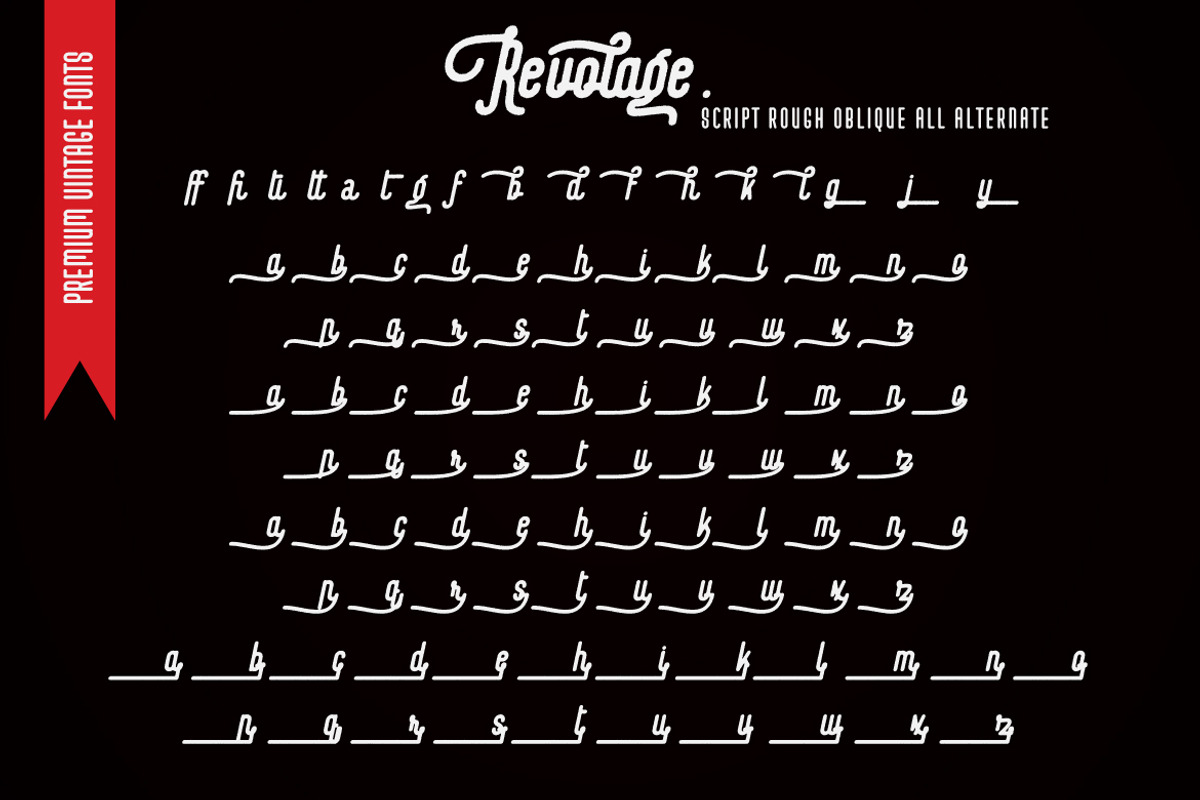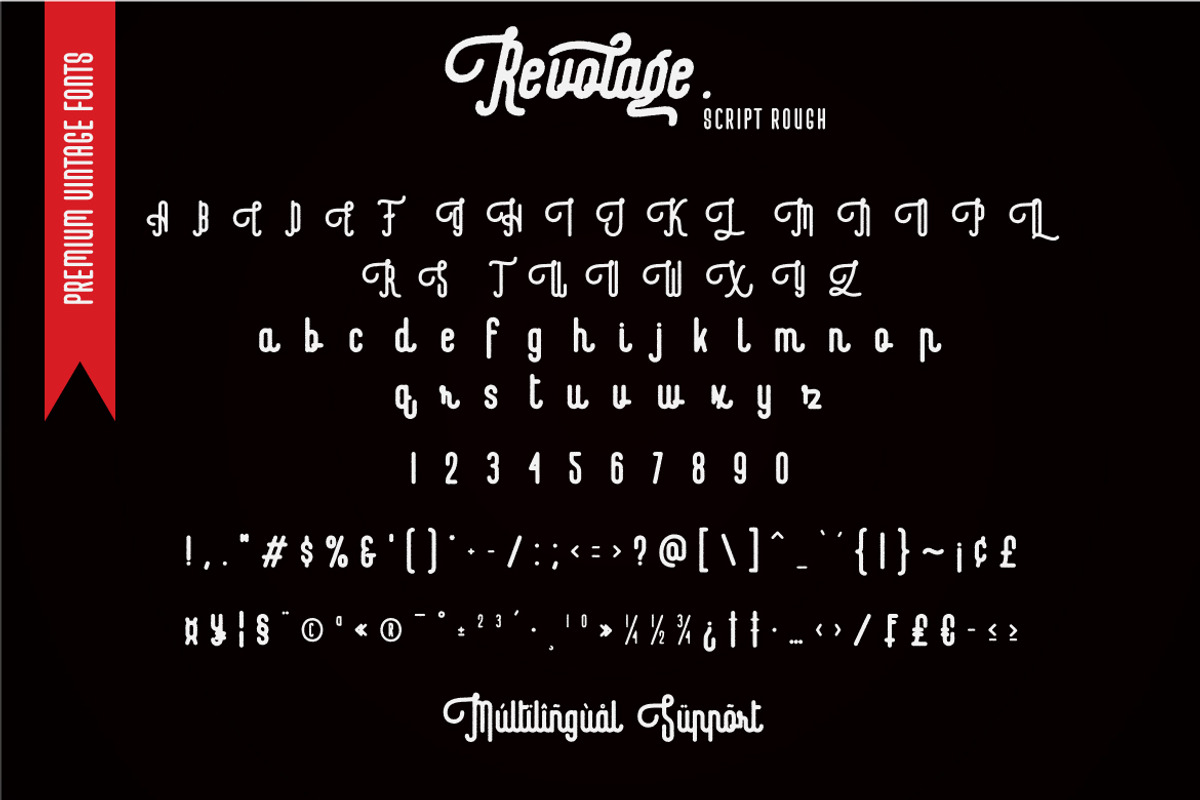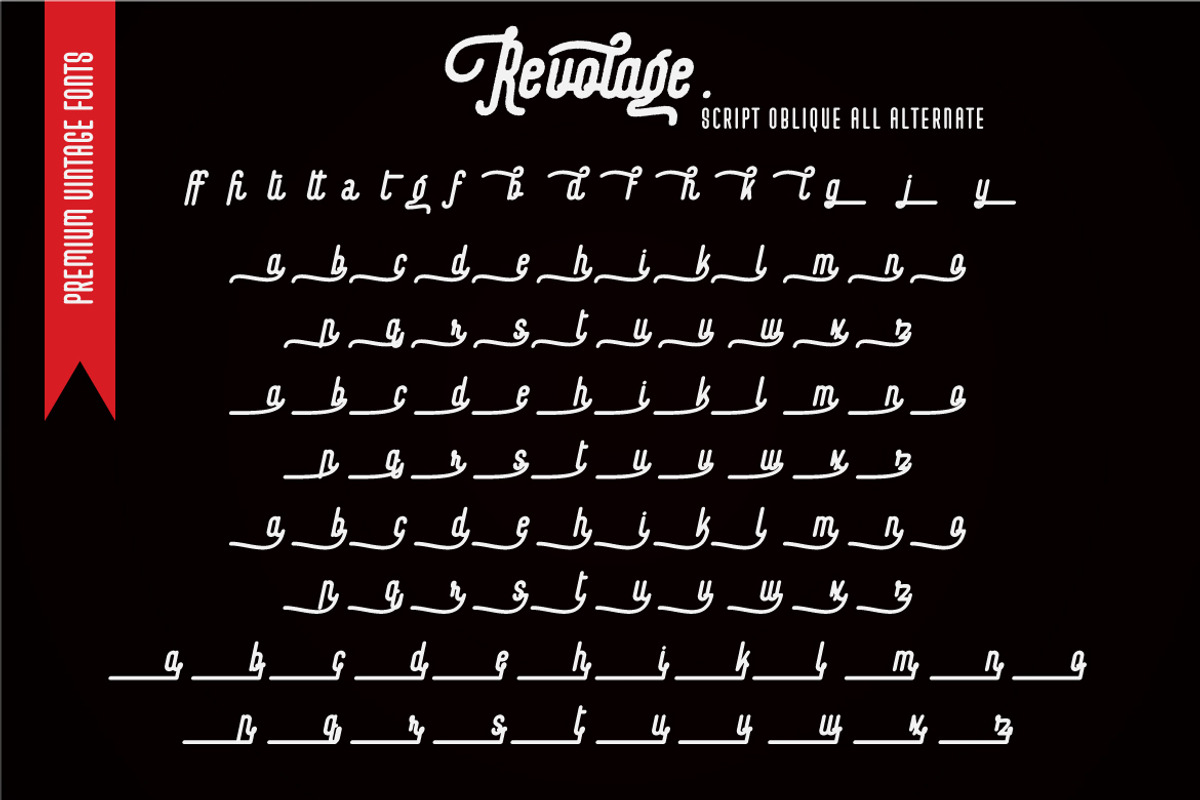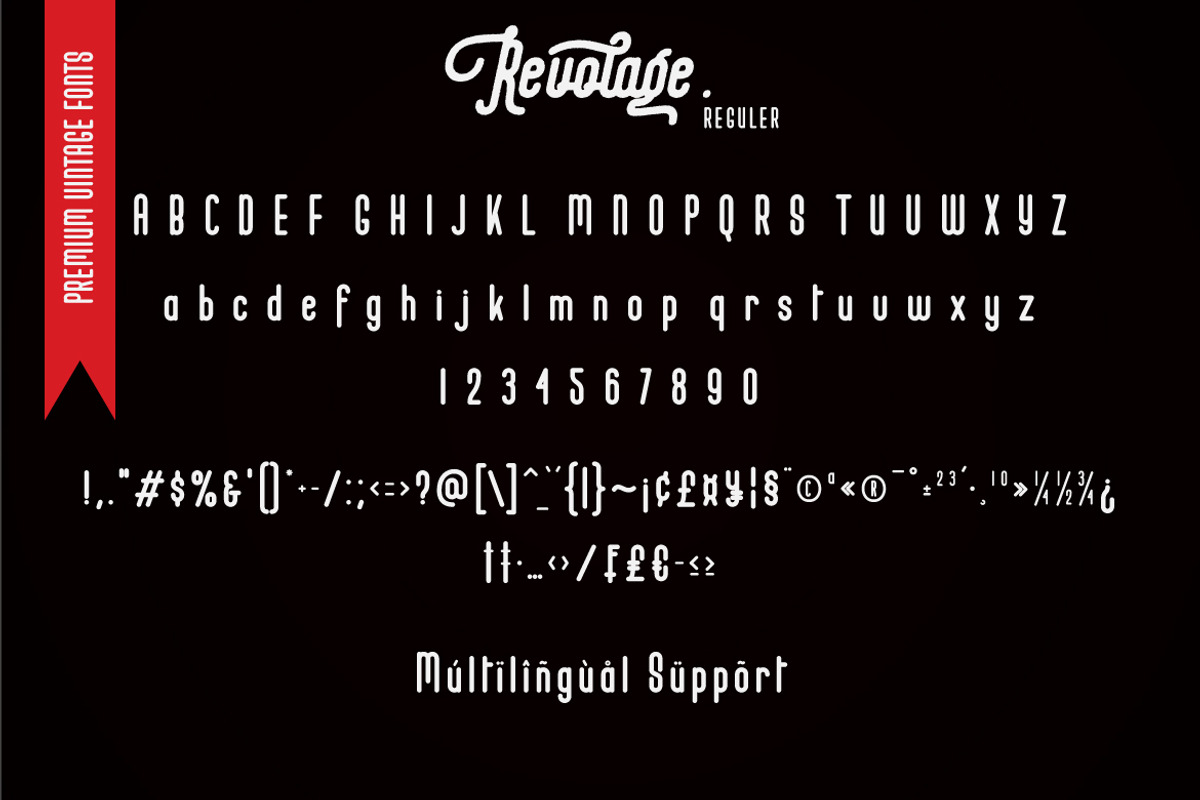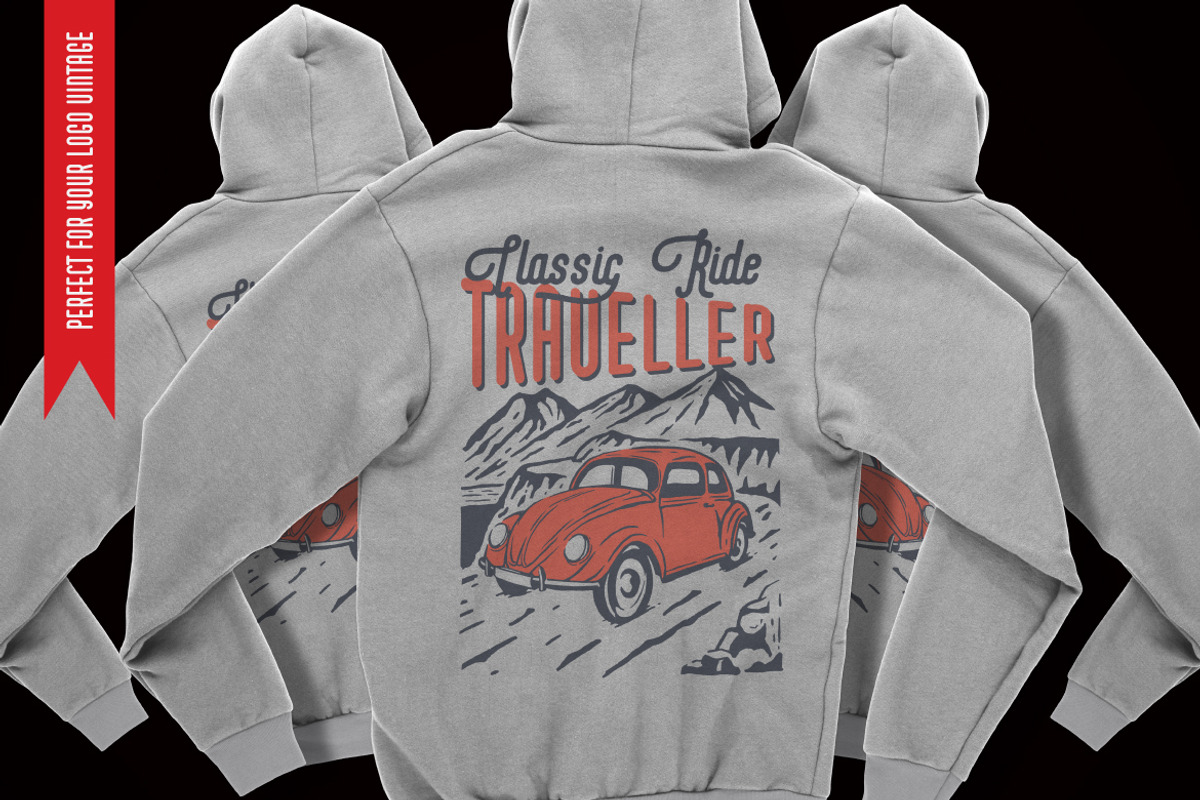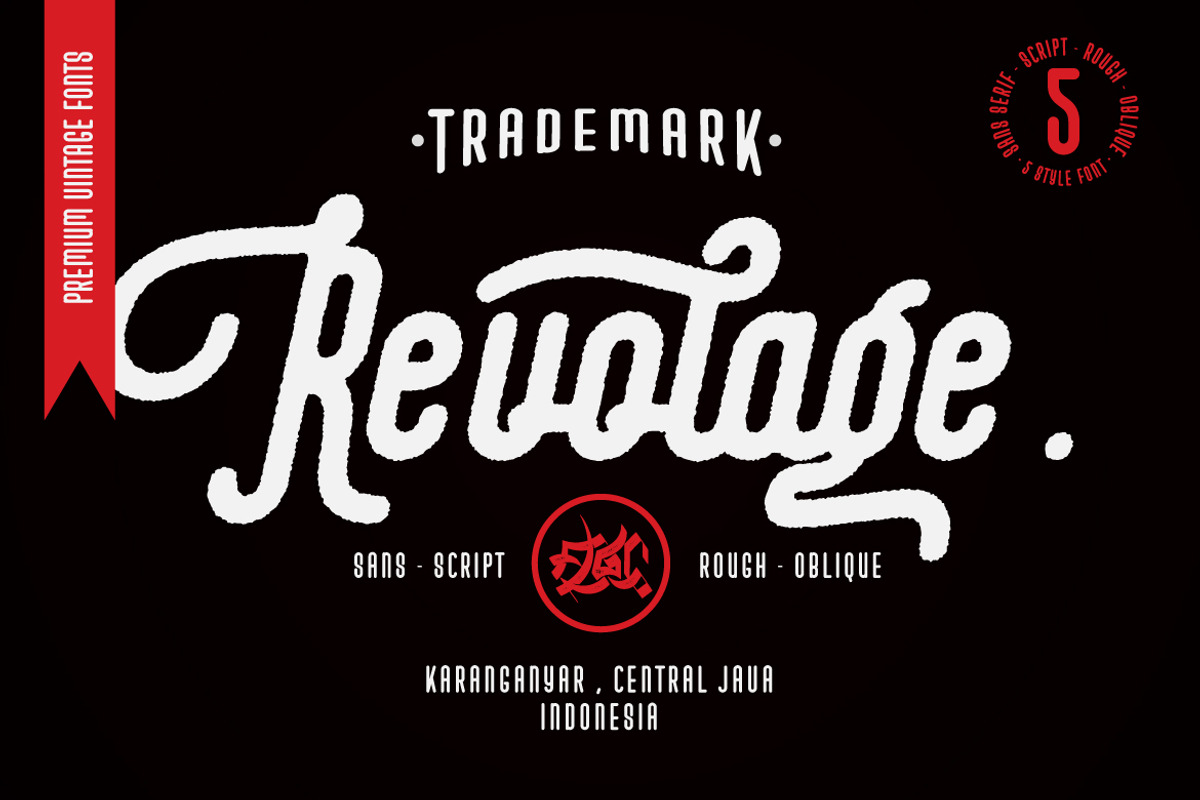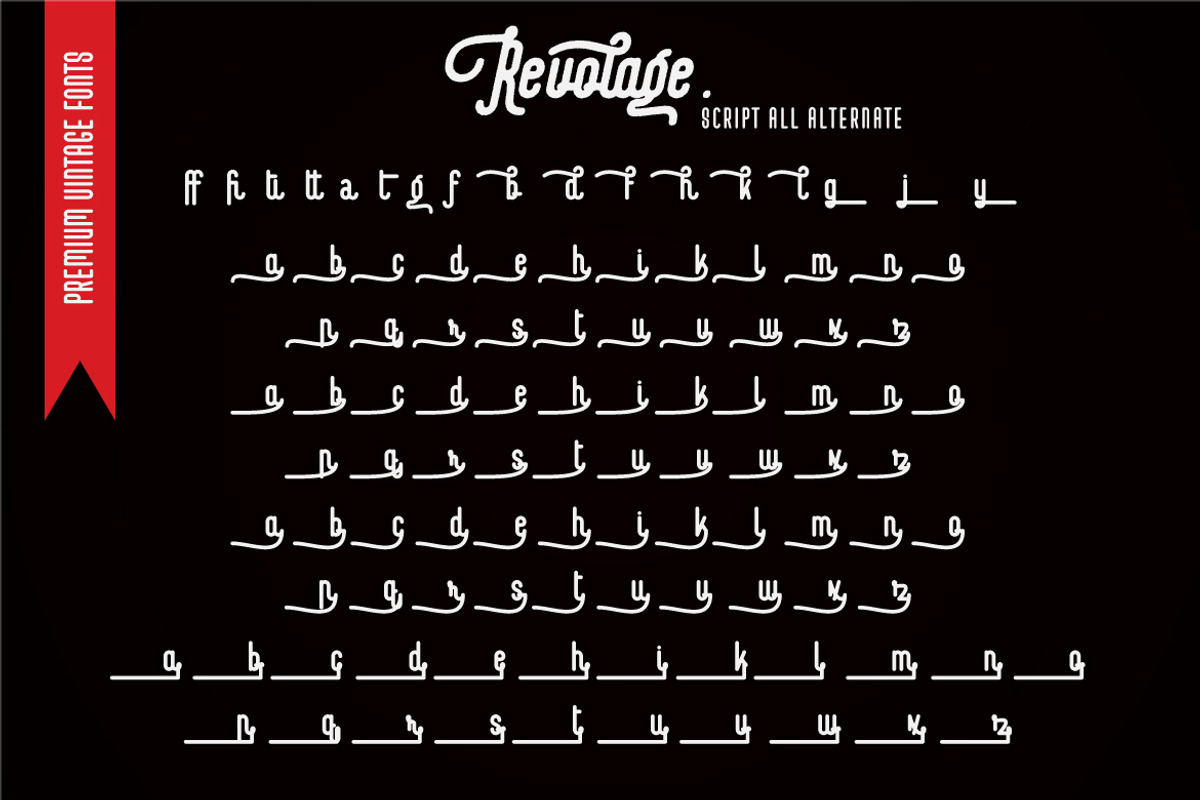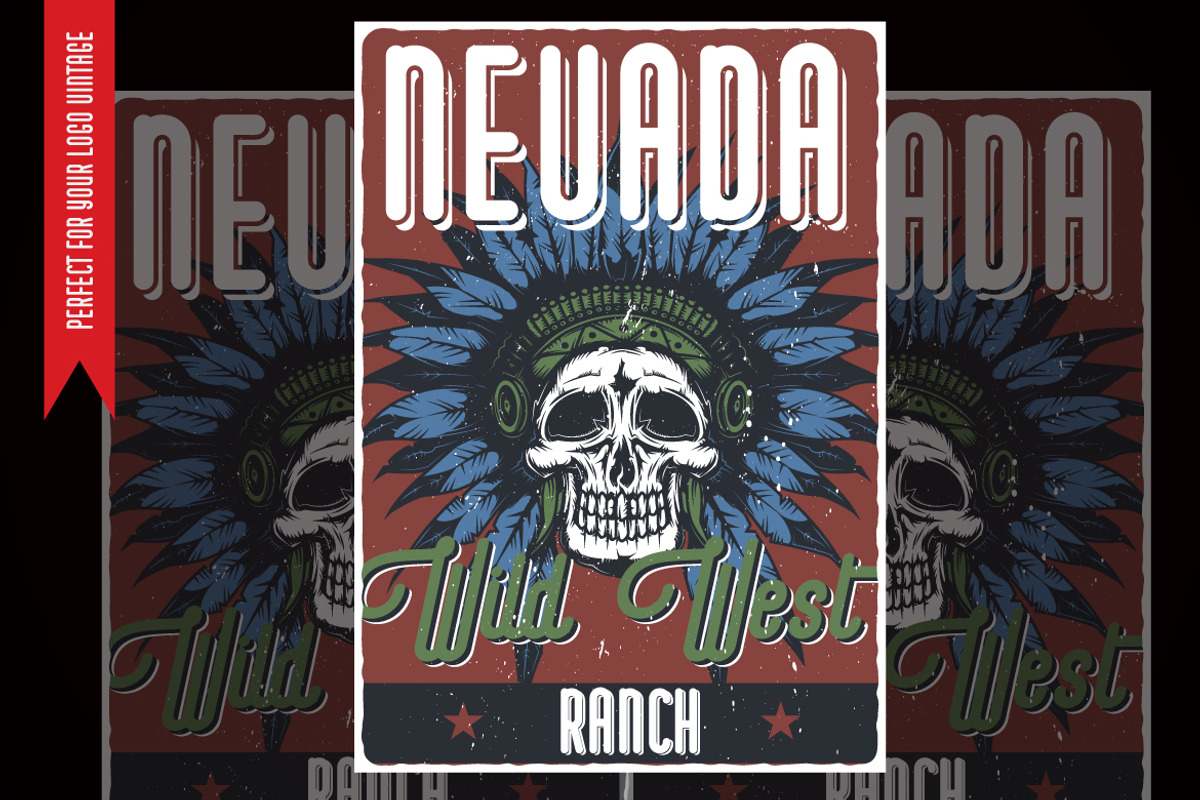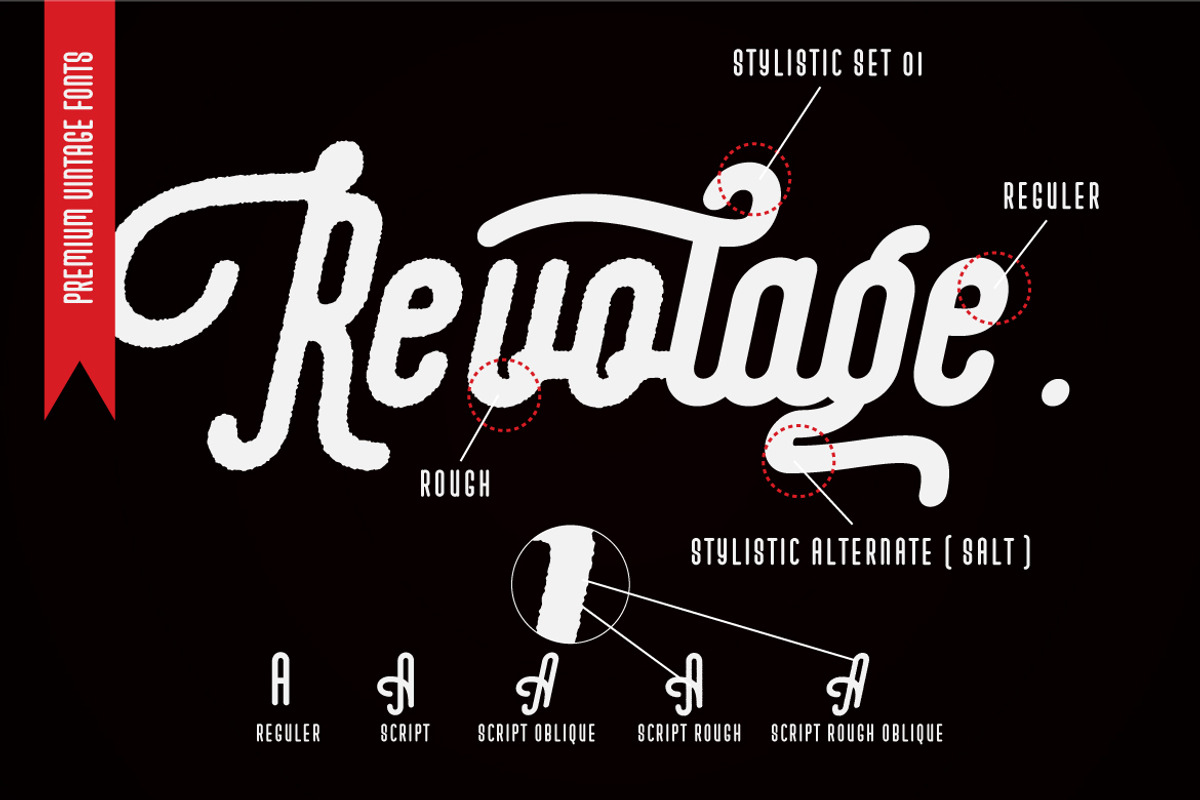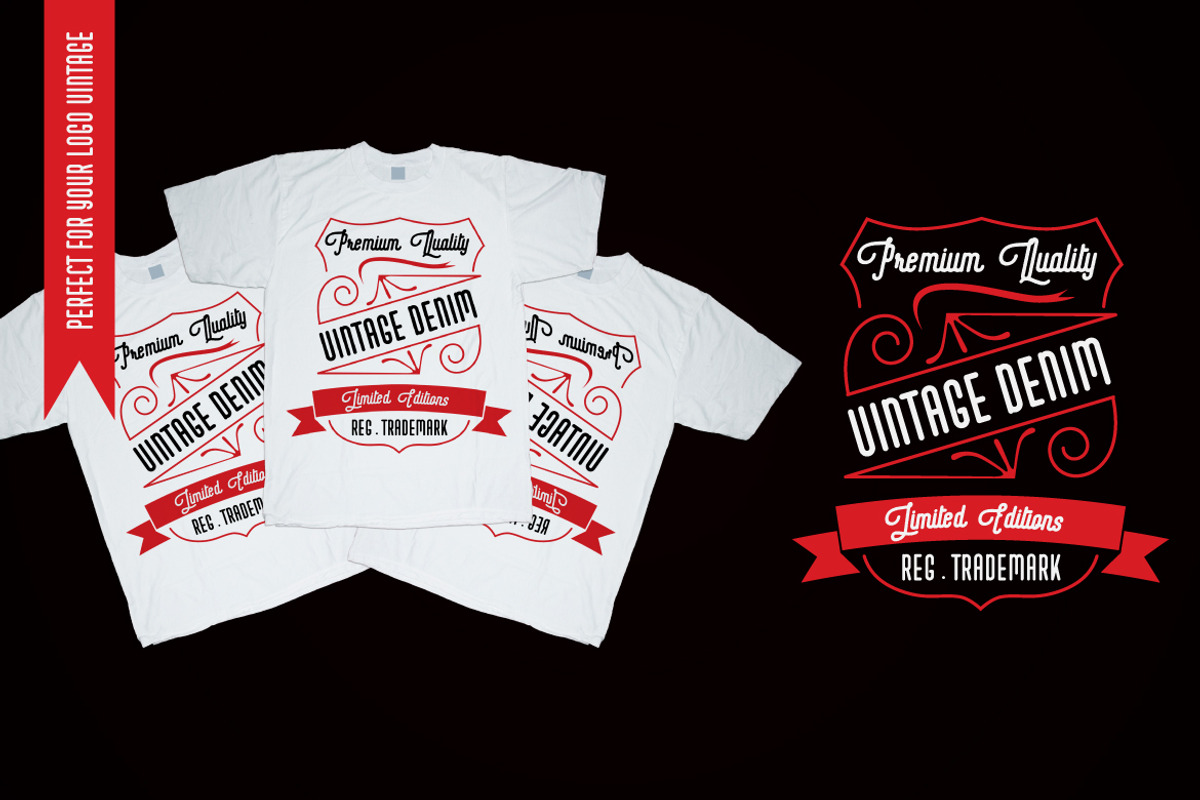
Revolage. - a Premium Vintage Font
Introducing Revolage.
Revolage is a vintage sans serif and script including Rough, & Clean versions as well as Oblique versions .
Revolage is a versatile sans serif and script typeface that gives a vintage aesthetic. With it’s unique & distinct characteristics it sets itself apart, while also maintaining a strong timeless appeal overall. Textured versions allow Revolage to be a complete set without the need for 3rd party effects to create a printed look, eliminating a step in the process of finalizing your piece
- Character Set A-Z
- Numberal
- PUA encode
MULTiLINGUAL ACCENT